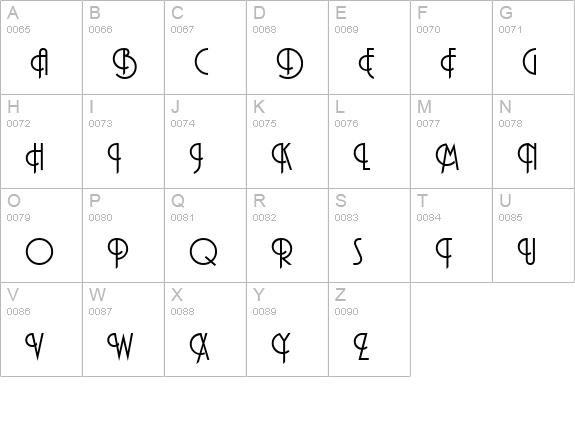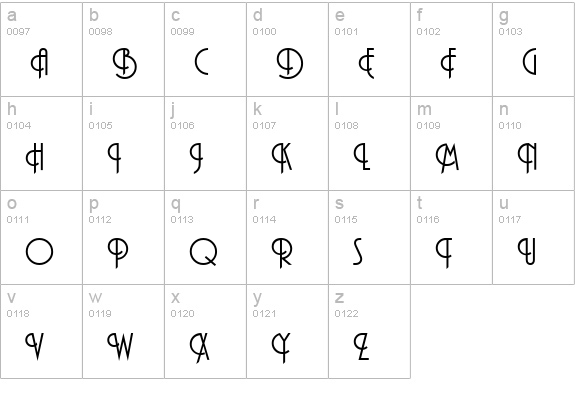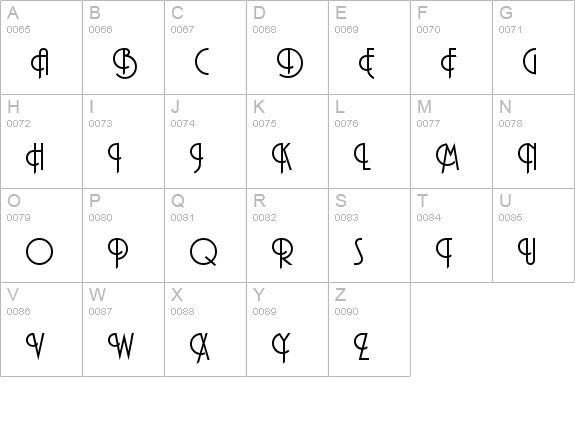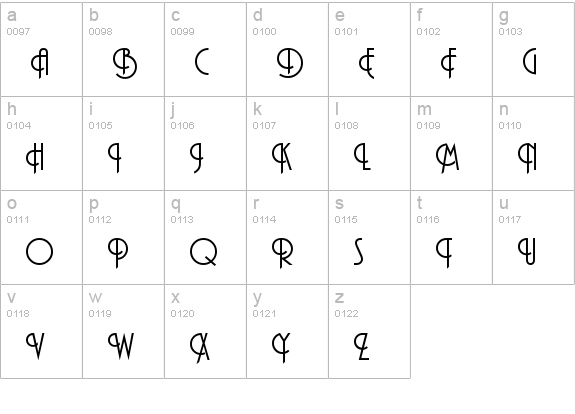
Pizzicato-Initials-Regular is the standard, neutral variant in the Pizzicato typeface family \xE2\x80\x94 well suited to general body text, paragraphs, and standard typographic work.
Pizzicato-Initials-Regular font is a charming and elegant typeface that exudes sophistication and style. With its delicate and refined strokes, this font is perfect for adding a touch of class to any design project. The unique initials and ornate details make Pizzicato-Initials-Regular font stand out from the crowd, making it a versatile choice for a wide range of applications. What's even better is that Pizzicato-Initials-Regular font is completely free to download at FontsMarket.com. This means that you can easily access this beautiful font and use it in your personal or commercial projects without any cost. Don't miss out on this opportunity to enhance your designs with the timeless beauty of Pizzicato-Initials-Regular font. Download it now and elevate your creations to the next level!